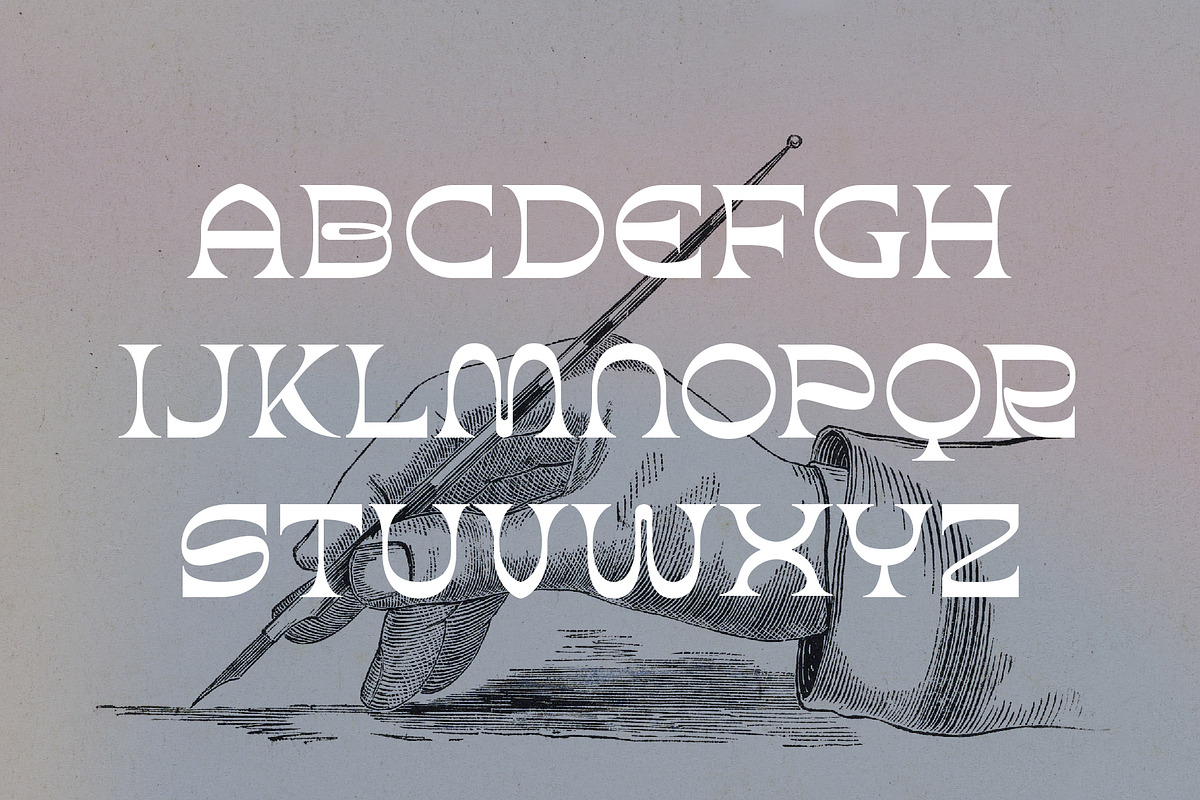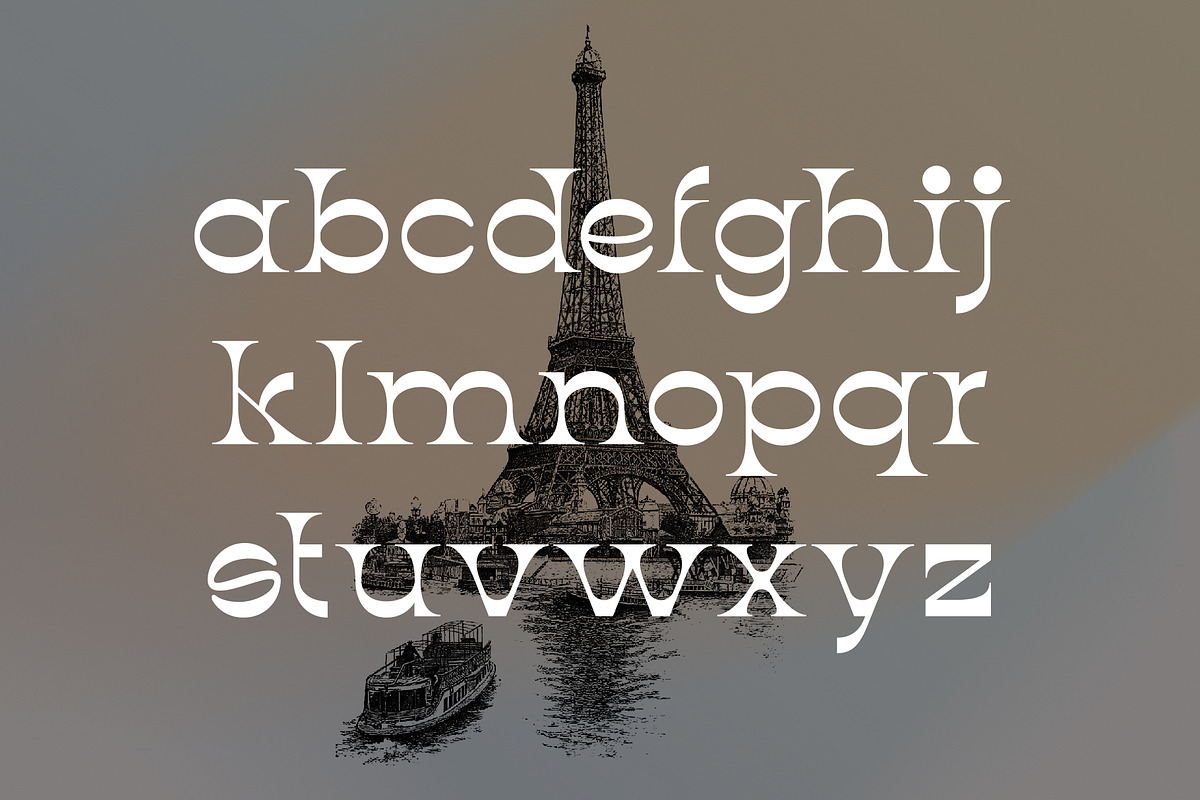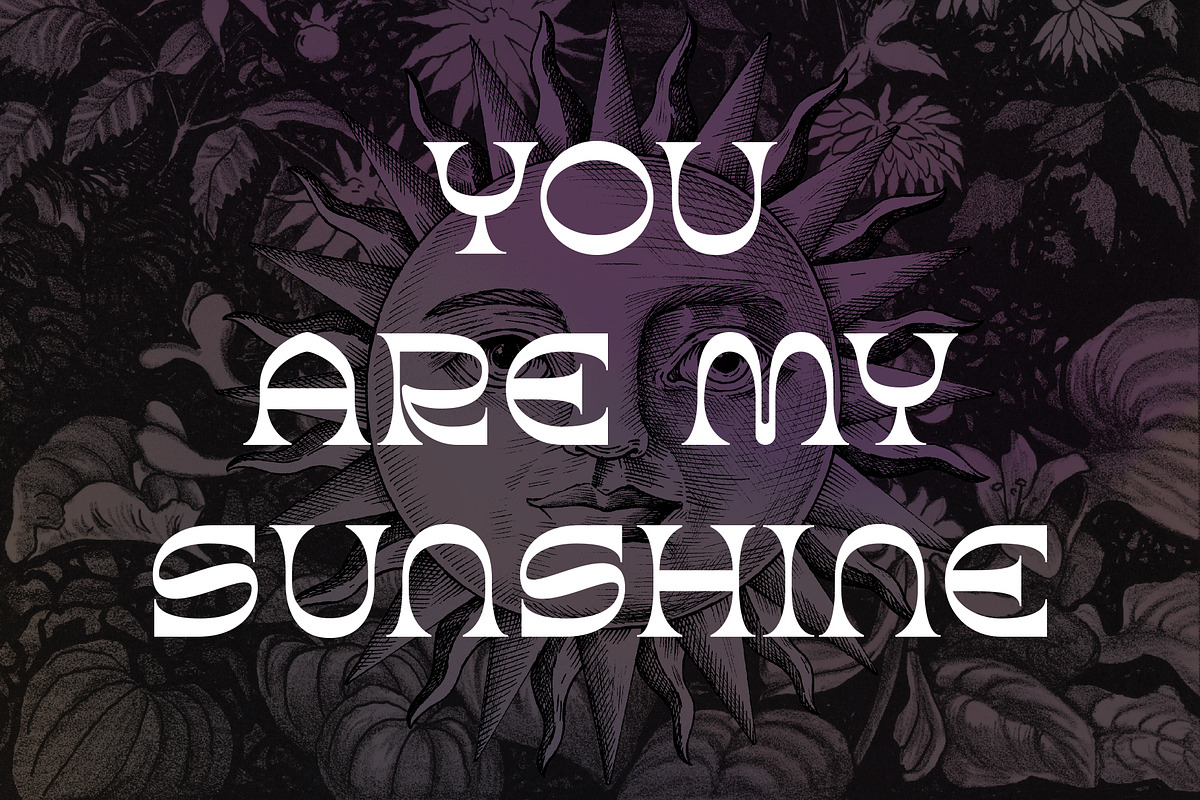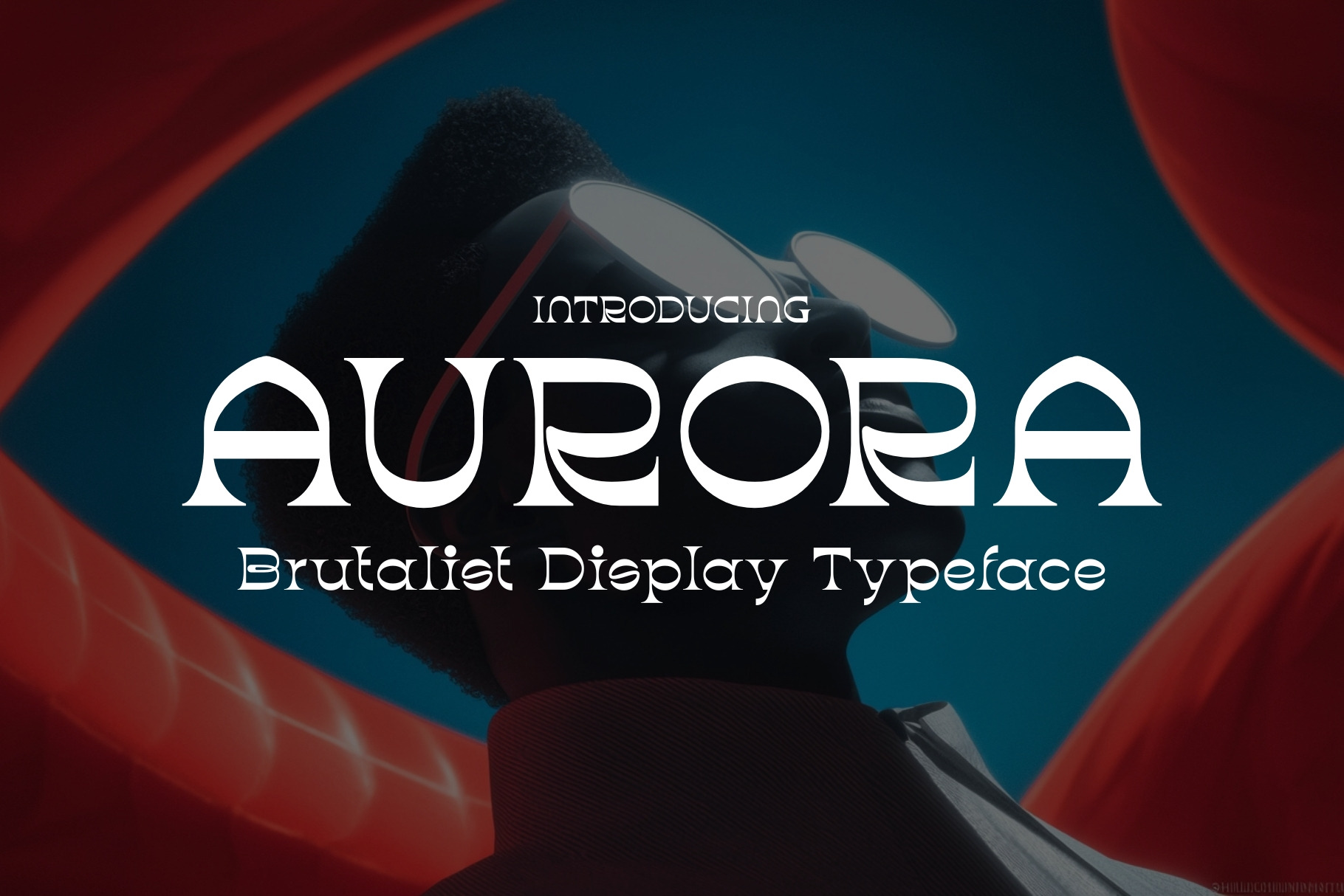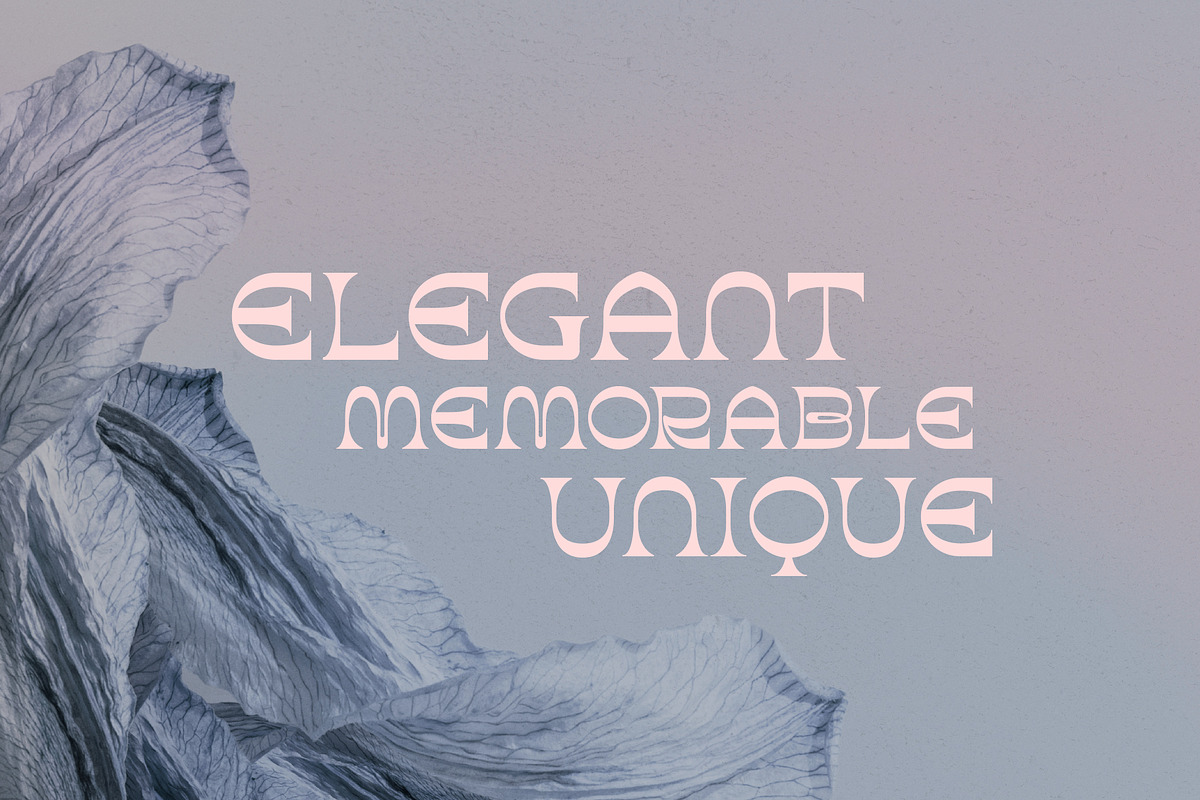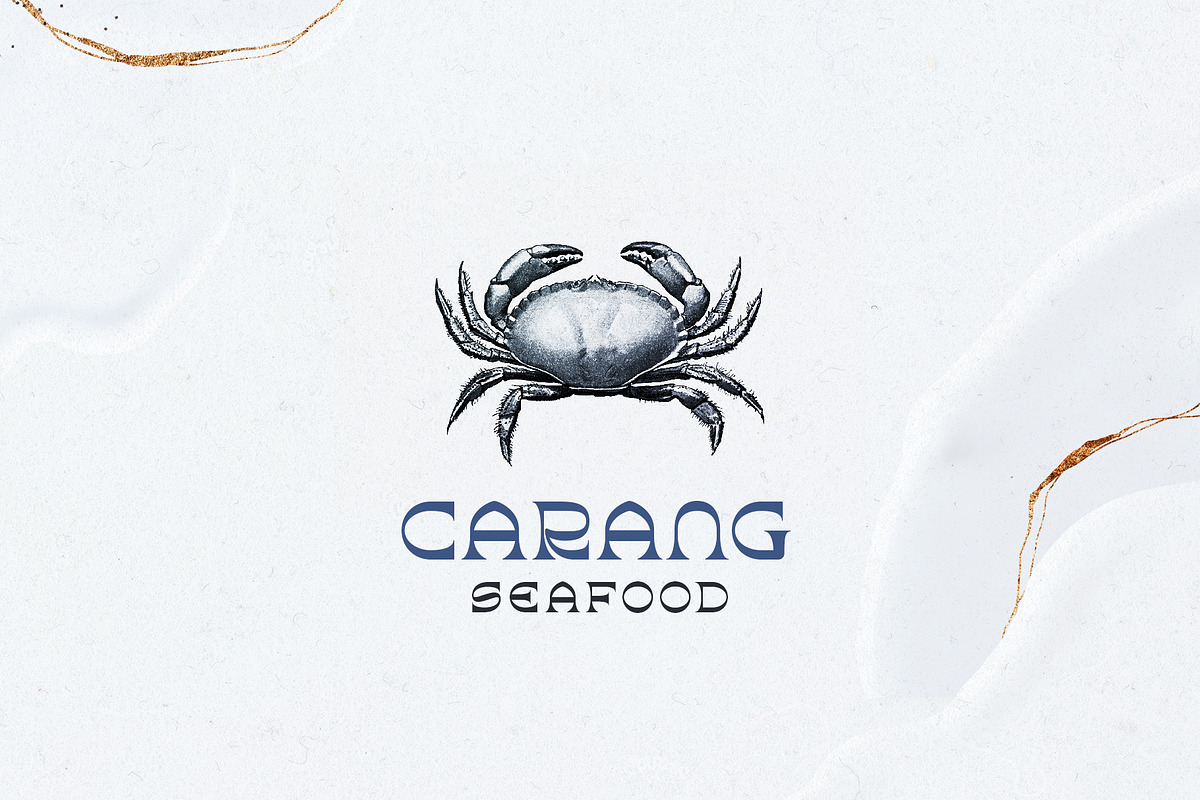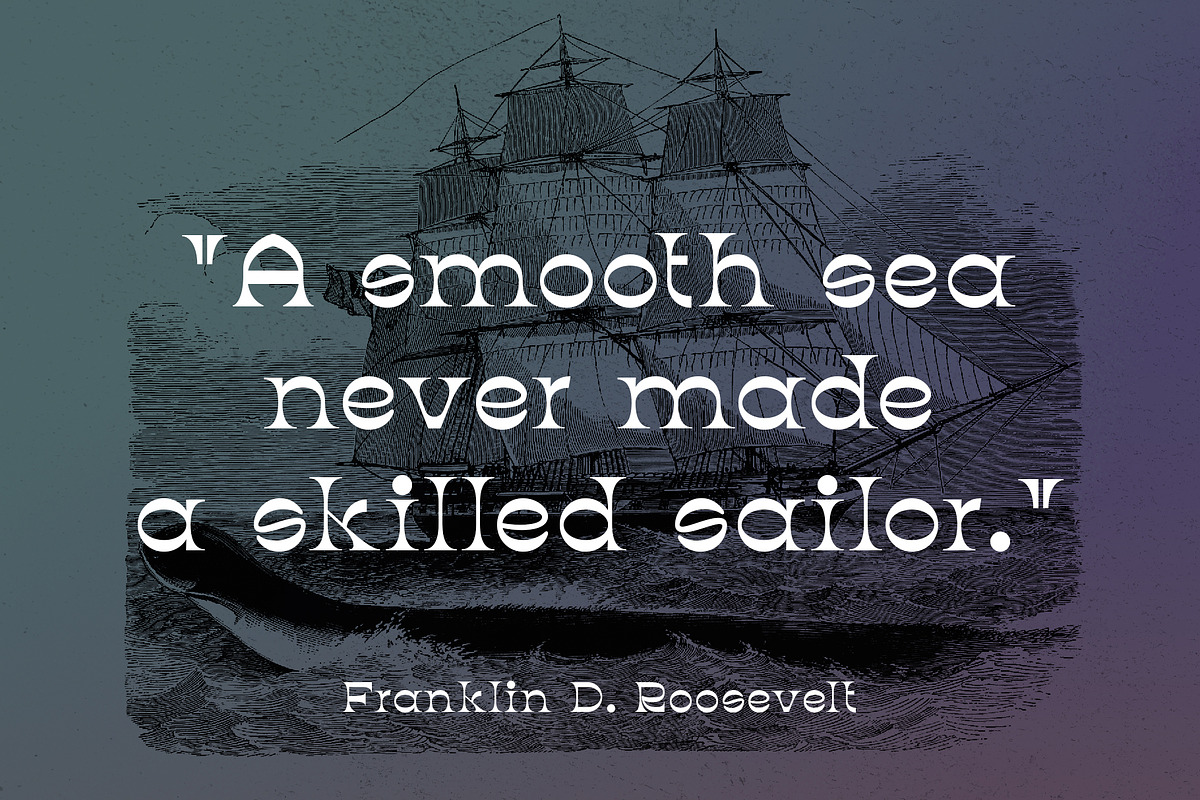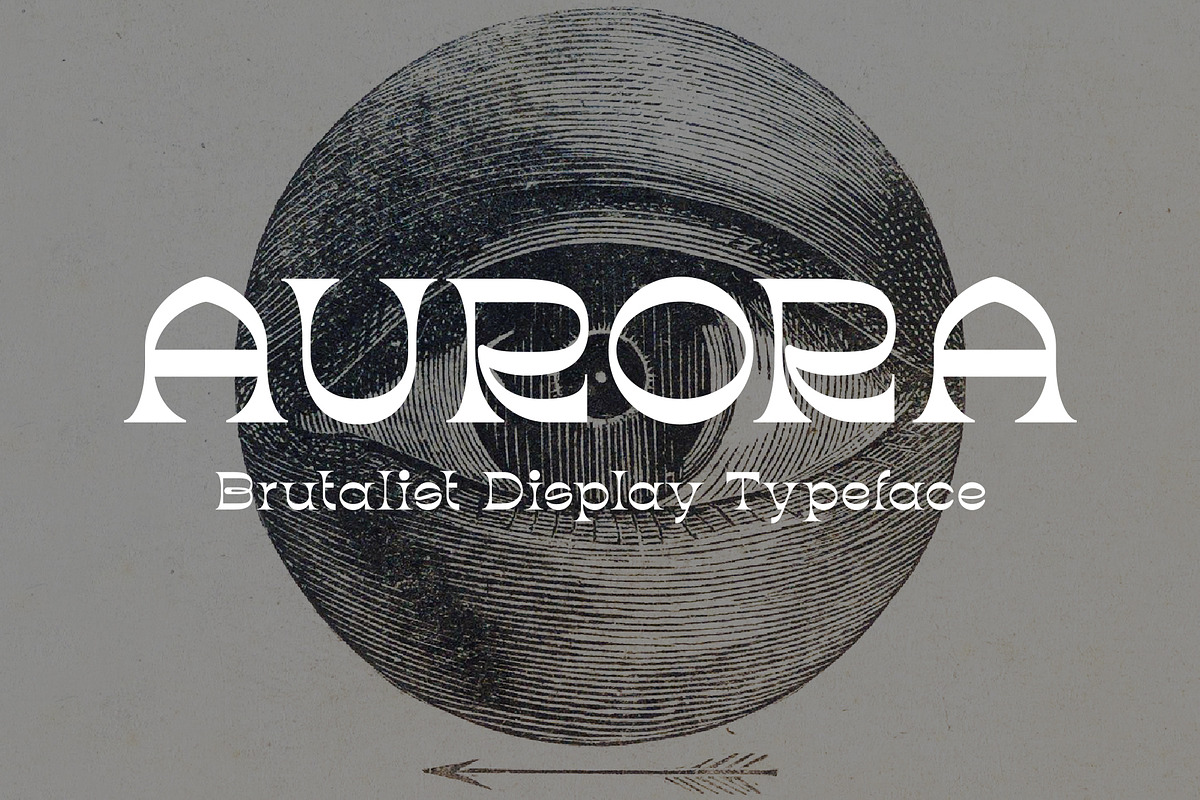
Aurora - Brutalist Display Typeface
Aurora is a serif typeface designed to express bold, artistic, and grand projects. This font is pretty versatile in the sense that it can be used normally, but also looks stunning in all caps. Aurora can be used for a host of different projects like social media banners, ads, printed quotes, t-shirt designs, packaging, branding, and much more.